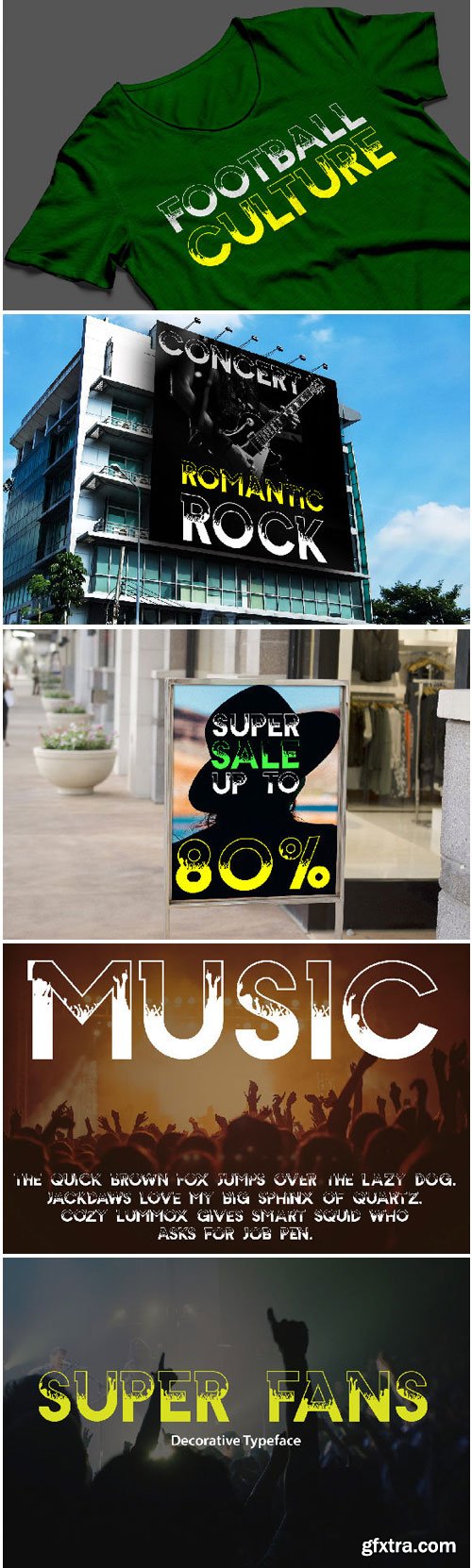
Super Fans Font
Super Fans is a modern, minimal and clean font with uppercase letters, numbers, punctuation and alternate letters. It’s a really versatile font, with a playful, yet classic style!